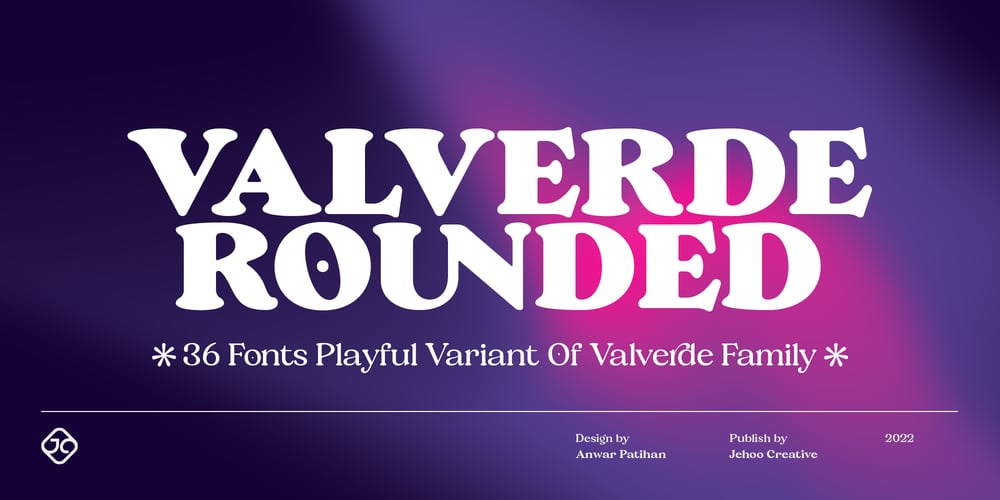
Valverde Rounded Font Family was designed by Anwar Patihan and published by Jehoo Creative. Valverde Rounded contains 36 styles and family package options. Valverde Rounded is the more playful and gentle variant of Valverde Family.It still remains a super-serif font family with 2 widths condensed and normal, each width consists of 18 fonts and has a complete weight from thin to black combined with beautiful italic cuts to meet the needs of any design in any format. Inspired by the type of vintage rounded look that has recently become a trend, this round letter character has a comfortable and friendly impression. Opentype features such as Stylistic Alternate and Ligature on the Valverde family make it look more aesthetic so that it fits in a classy modern look.Stunningly beautiful and vintage rounded serifs make them an essential addition to any type of tool kit.